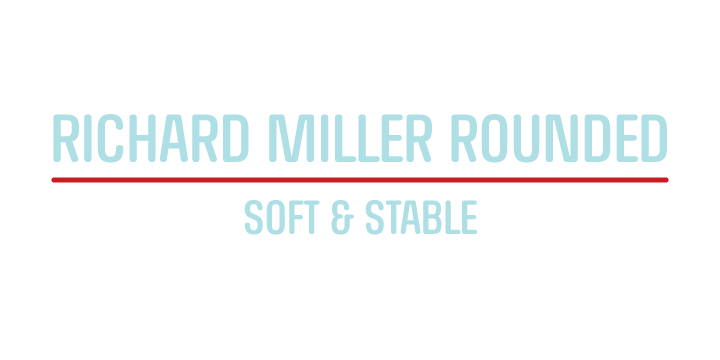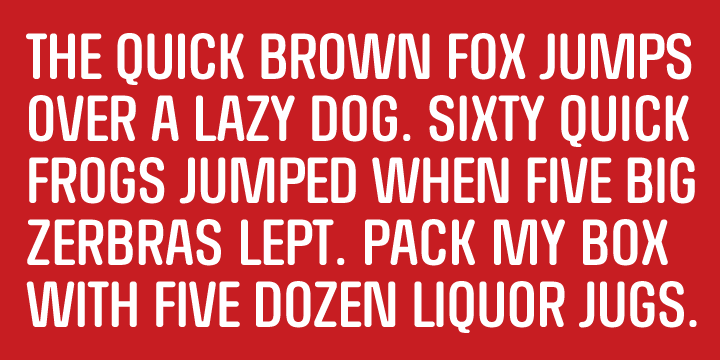
Richard Miller Rounded
Richard Miller Rounded started out as just a logo for a website/business card. It is a modular sans that works well in both print and web design.